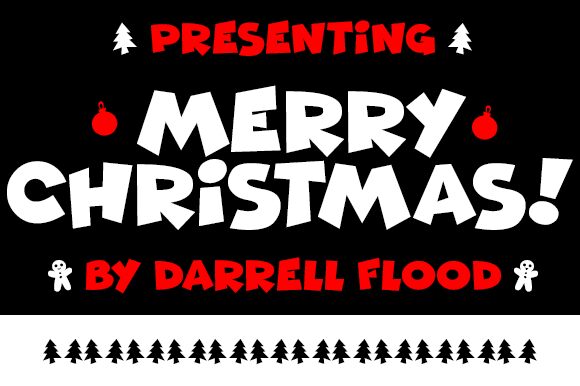
Merry Christmas 2021 Italic
Merry Christmas 2021 font is a lovely comic Christmas typeface designed by Darrell Flood.
Special Christmas characters are: {},[],